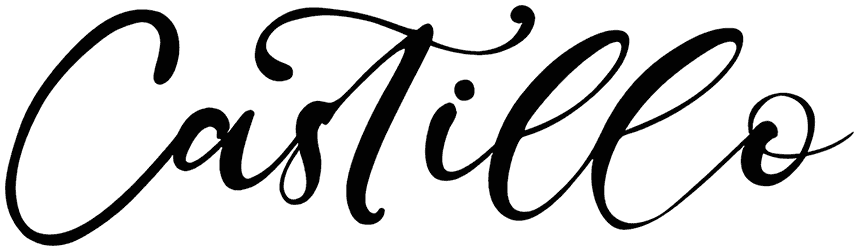
Castillo Font
Castillo is ideal if you want to give your digital artwork a dash of contemporary elegance. This connected-letter calligraphy font is a safe bet for designers looking for a beautiful typeface with a pleasant tone and a dramatic visual impact for invitations, cards, ads, and posters.